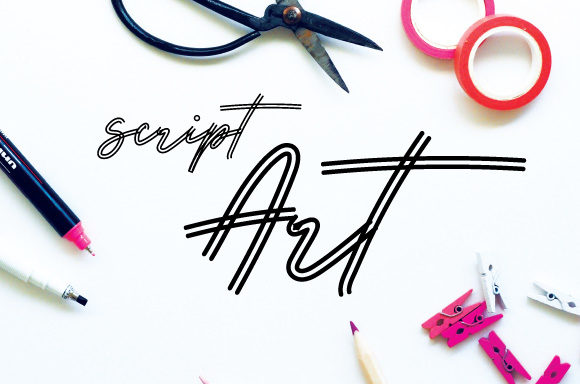
**Introducing Script Art Font: The Perfect Canvas for Your Creative Expression**
Immerse yourself in the captivating world of Script Art Font, a masterpiece crafted by the renowned Ailil Design Studio. This exceptional script font family embodies the essence of modern calligraphy, seamlessly blending timeless elegance with contemporary flair.
Script Art's alluring curves and graceful strokes dance across the page, evoking a sense of sophistication and refinement. Its unmatched versatility empowers you to transform your designs into captivating works of art. Whether you're crafting stunning display ads, elegant invitations, or enchanting social media posts, Script Art will elevate your creations to new heights.
Step into a realm where words become expressive art. Embrace the allure of Script Art Font and unleash your imagination. From heartfelt love letters to persuasive business presentations, this font will add a touch of magic to every message you convey. Its captivating allure will draw attention, leaving an unforgettable impression on your audience.
With Script Art as your creative companion, you'll never run short of inspiration. Its endless possibilities will spark your imagination and ignite your passion for design. Experience the joy of transforming ordinary words into extraordinary masterpieces.
Don't settle for ordinary fonts. Choose Script Art and unlock the gateway to a world of creative possibilities. Let your imagination soar and create designs that captivate and inspire.